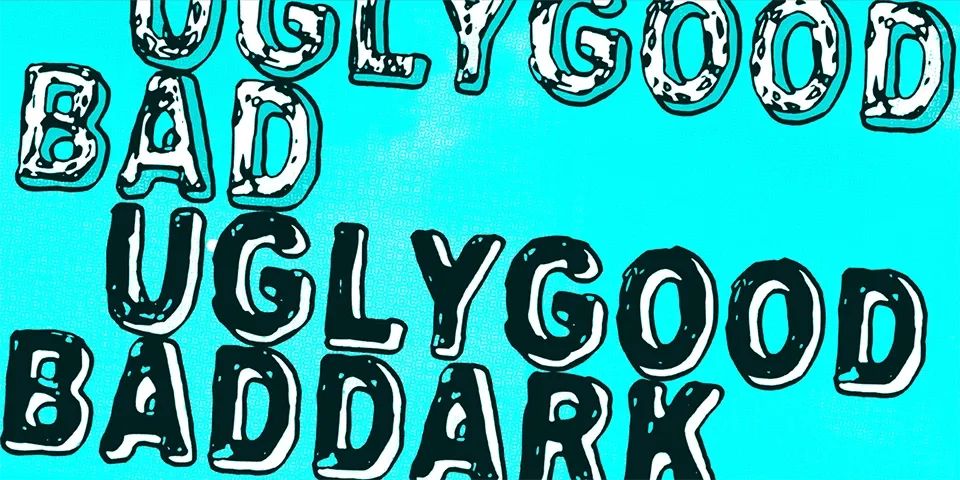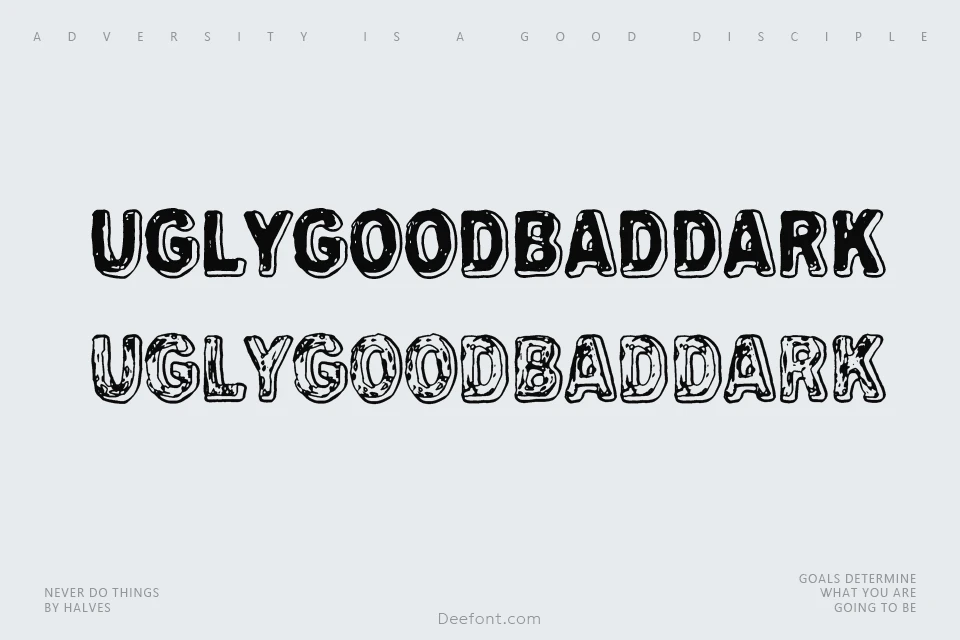
Uglygoodbad Font
Uglygoodbad Font is a distinctive display typeface that comes in two different styles. This font features 191 uniquely designed characters, making it suitable for creative and expressive typography. Its design incorporates bold, decorative elements that can add character to various design projects. While the font is freely available for personal use, it requires proper licensing for commercial applications. The typeface works well across different platforms including PC, Mac, and Linux systems, making it versatile for digital design work. Its unique aesthetic makes it particularly effective for projects requiring a strong visual impact or distinctive typographic presence.